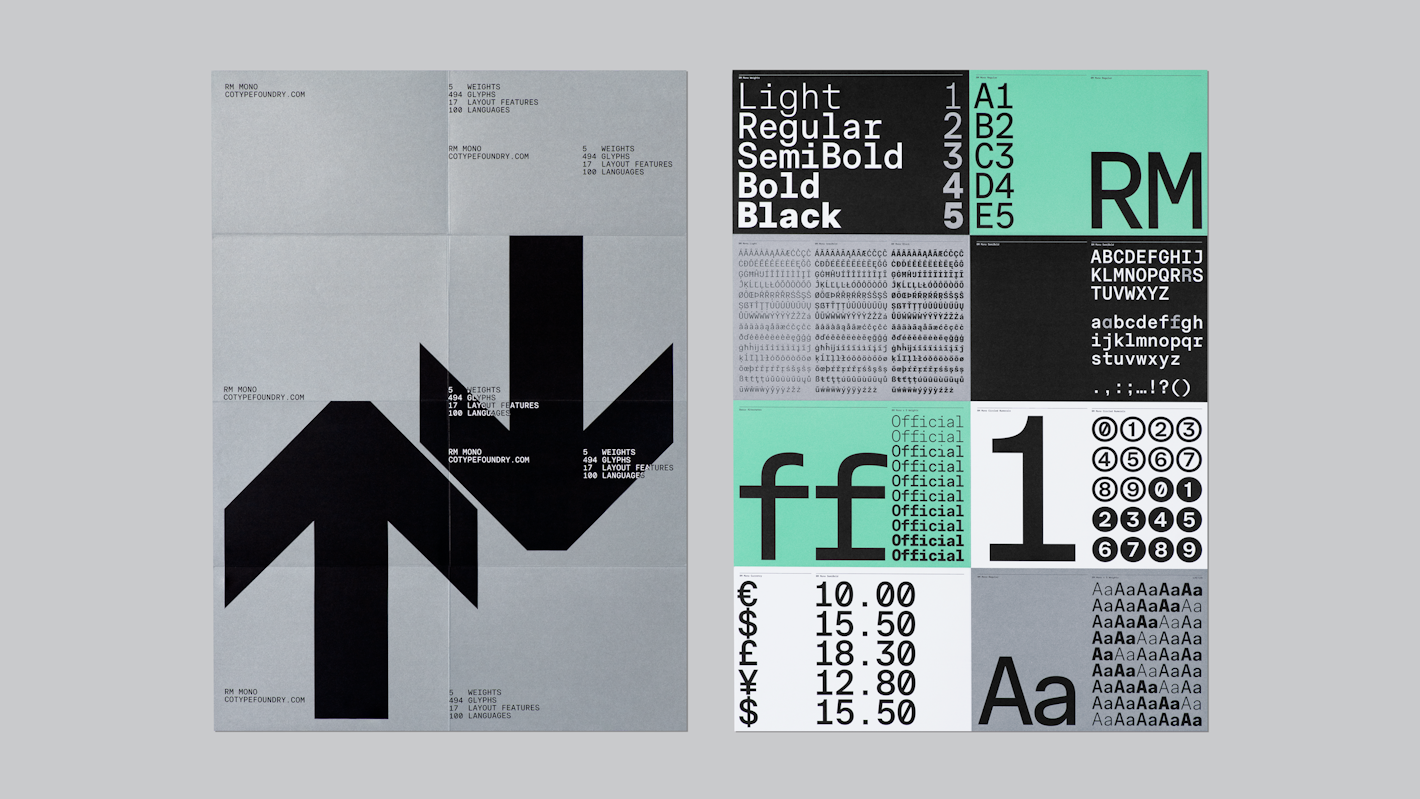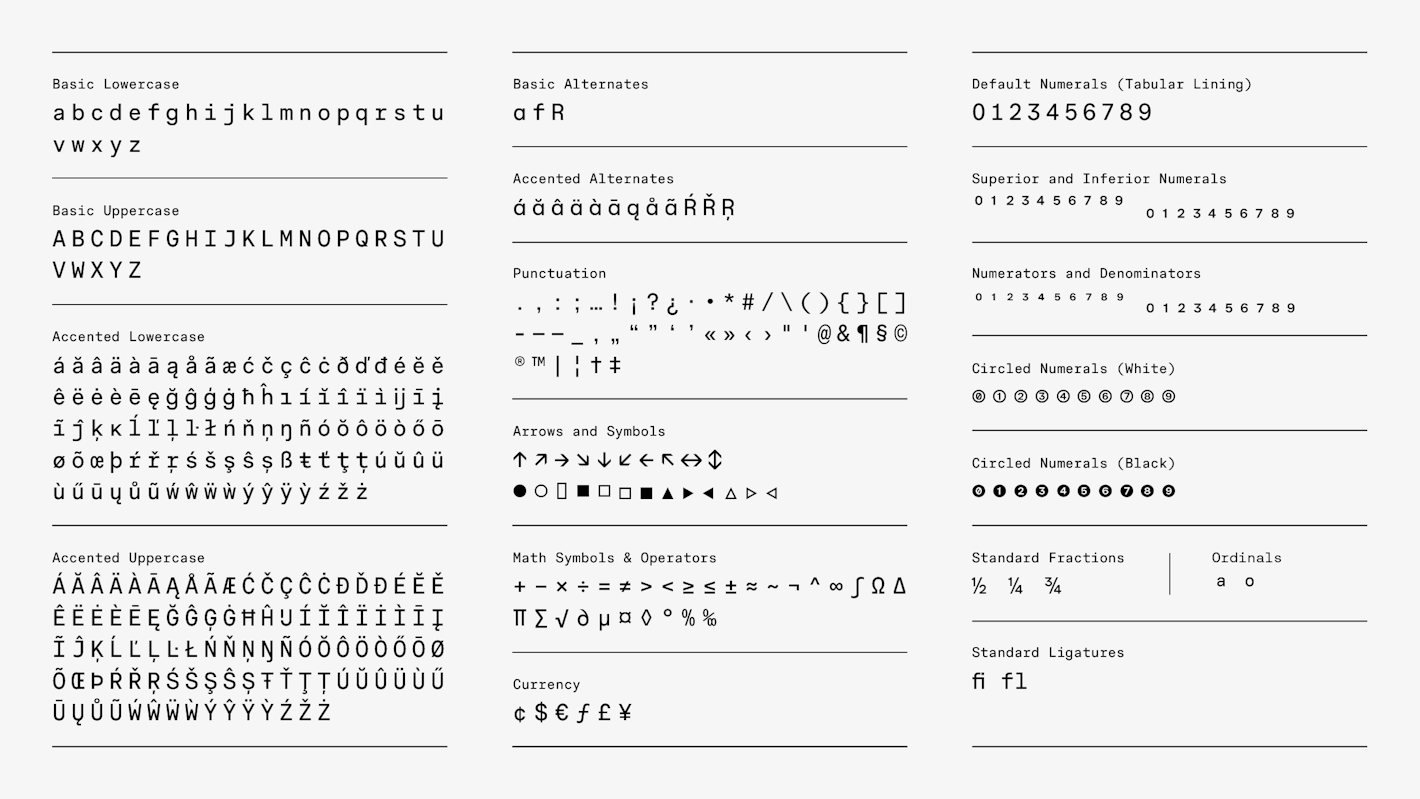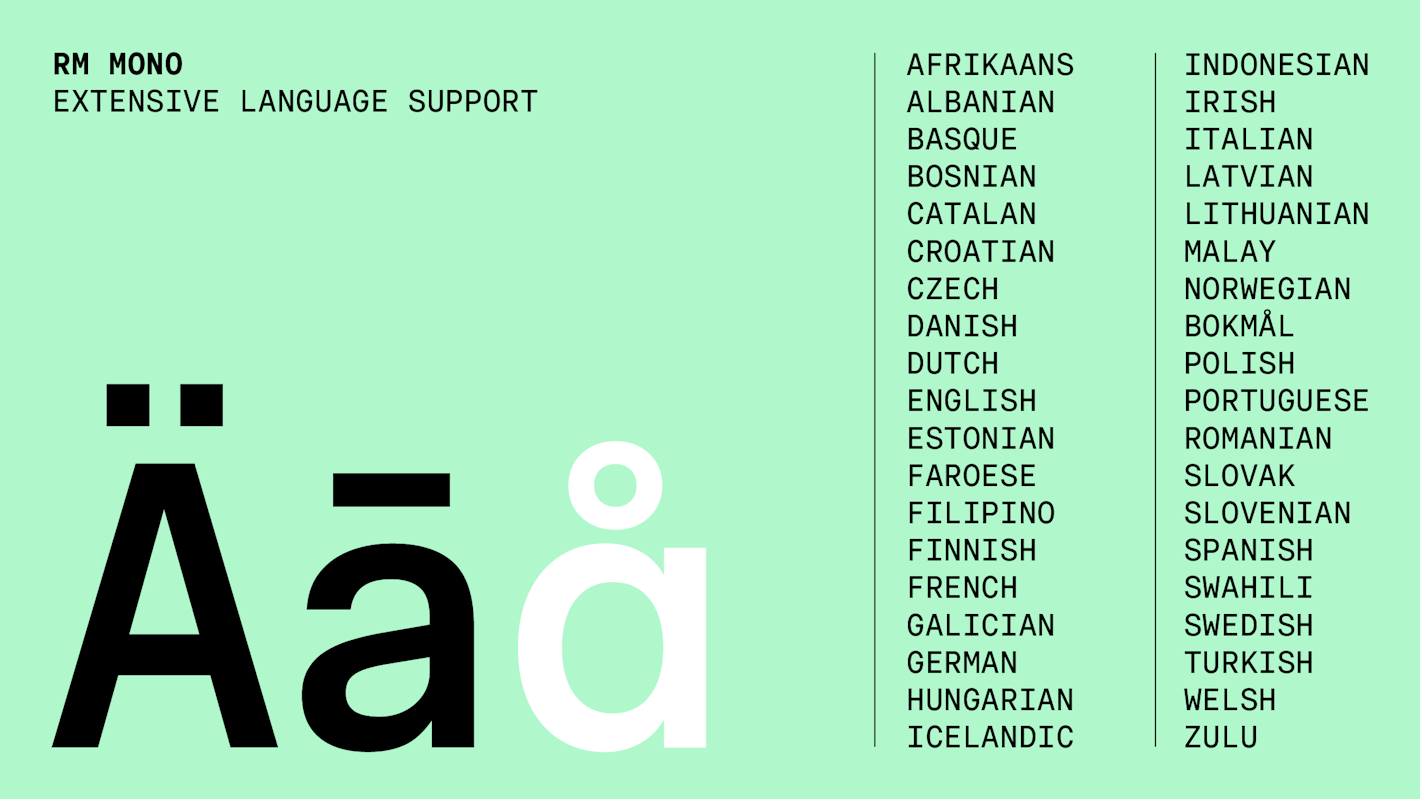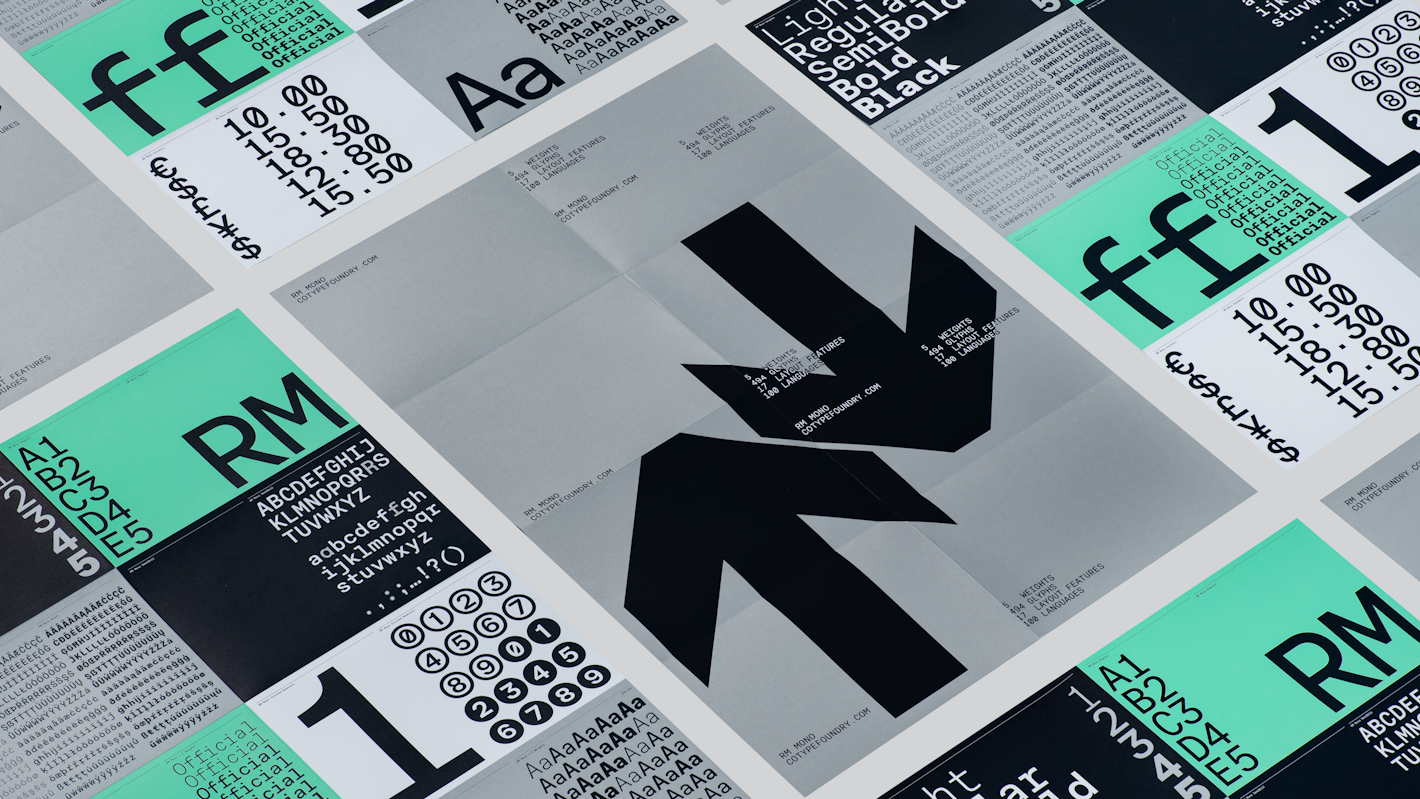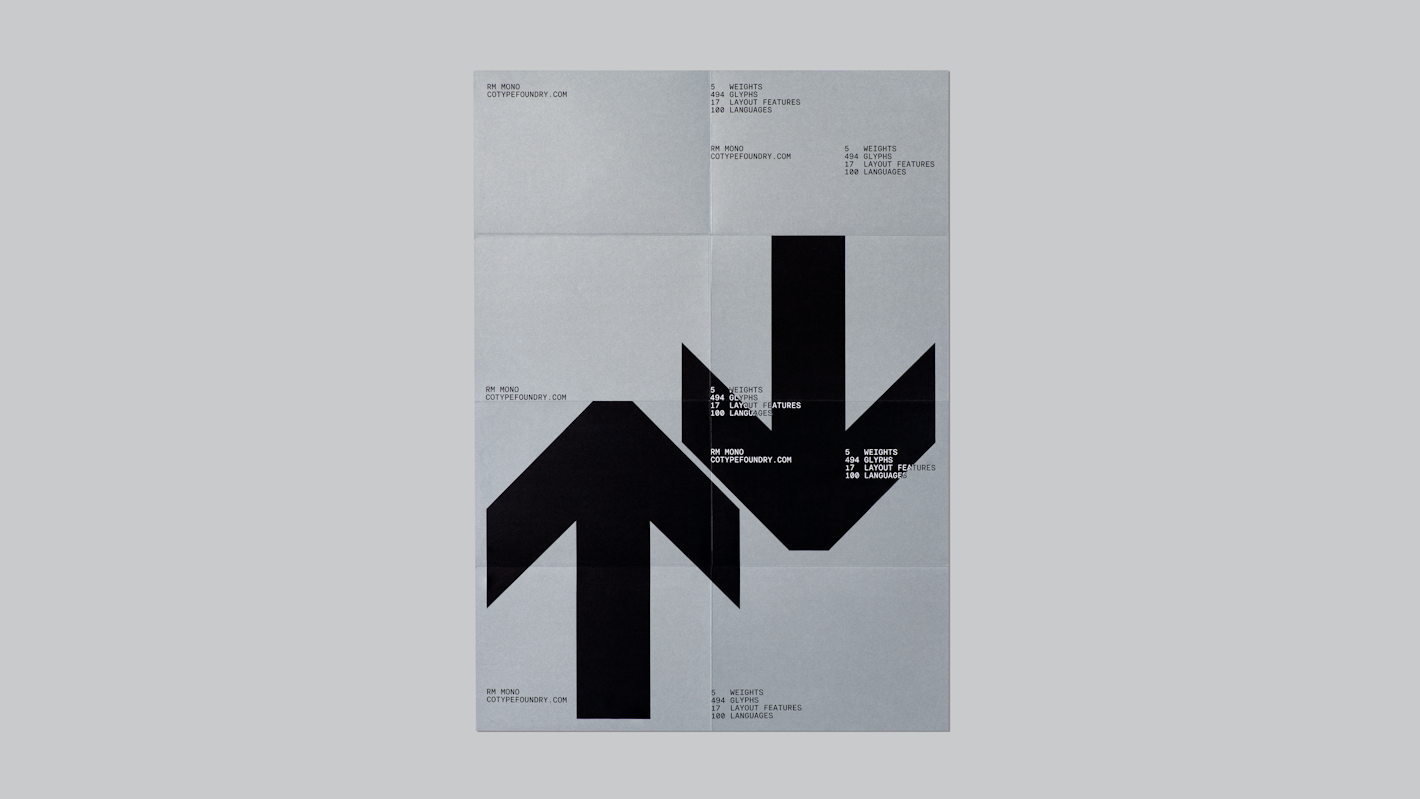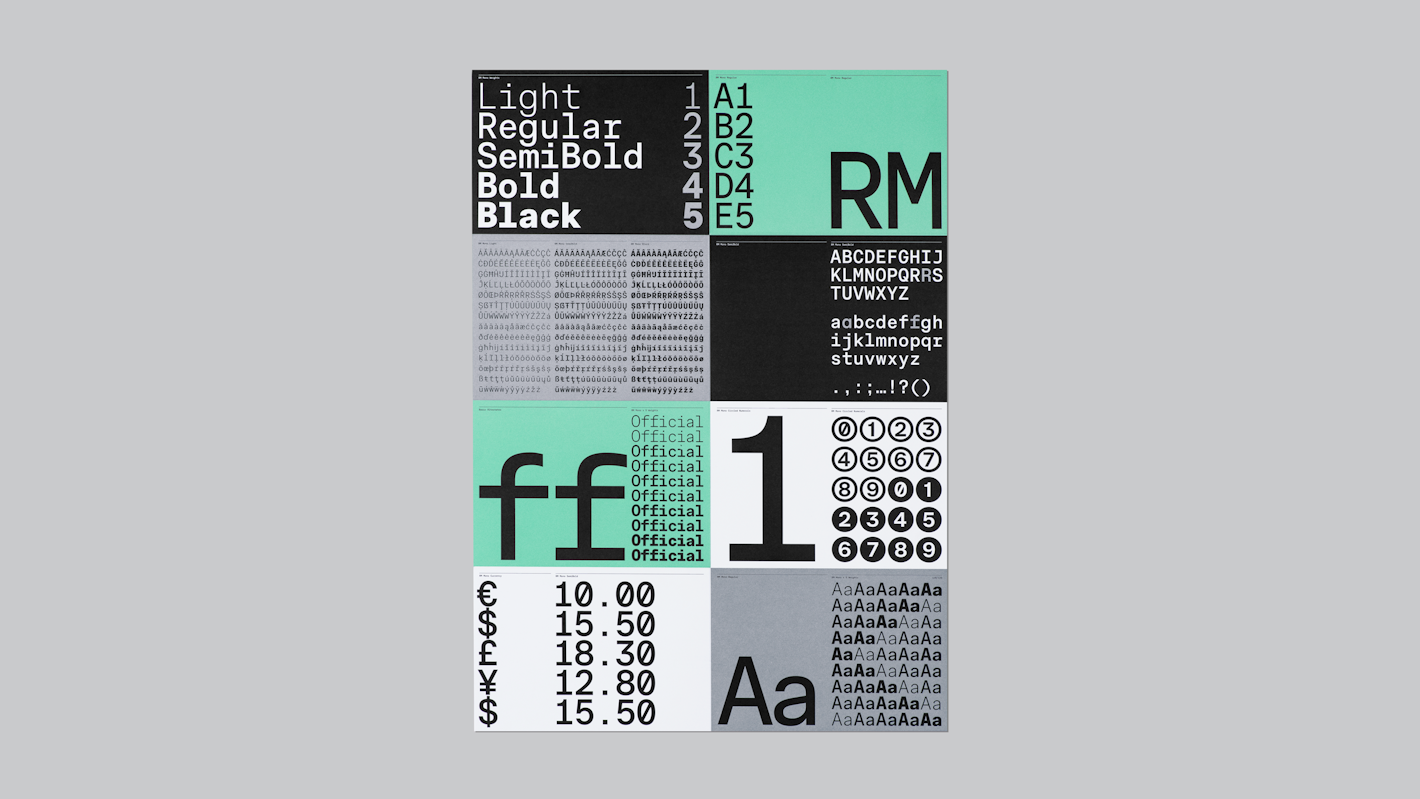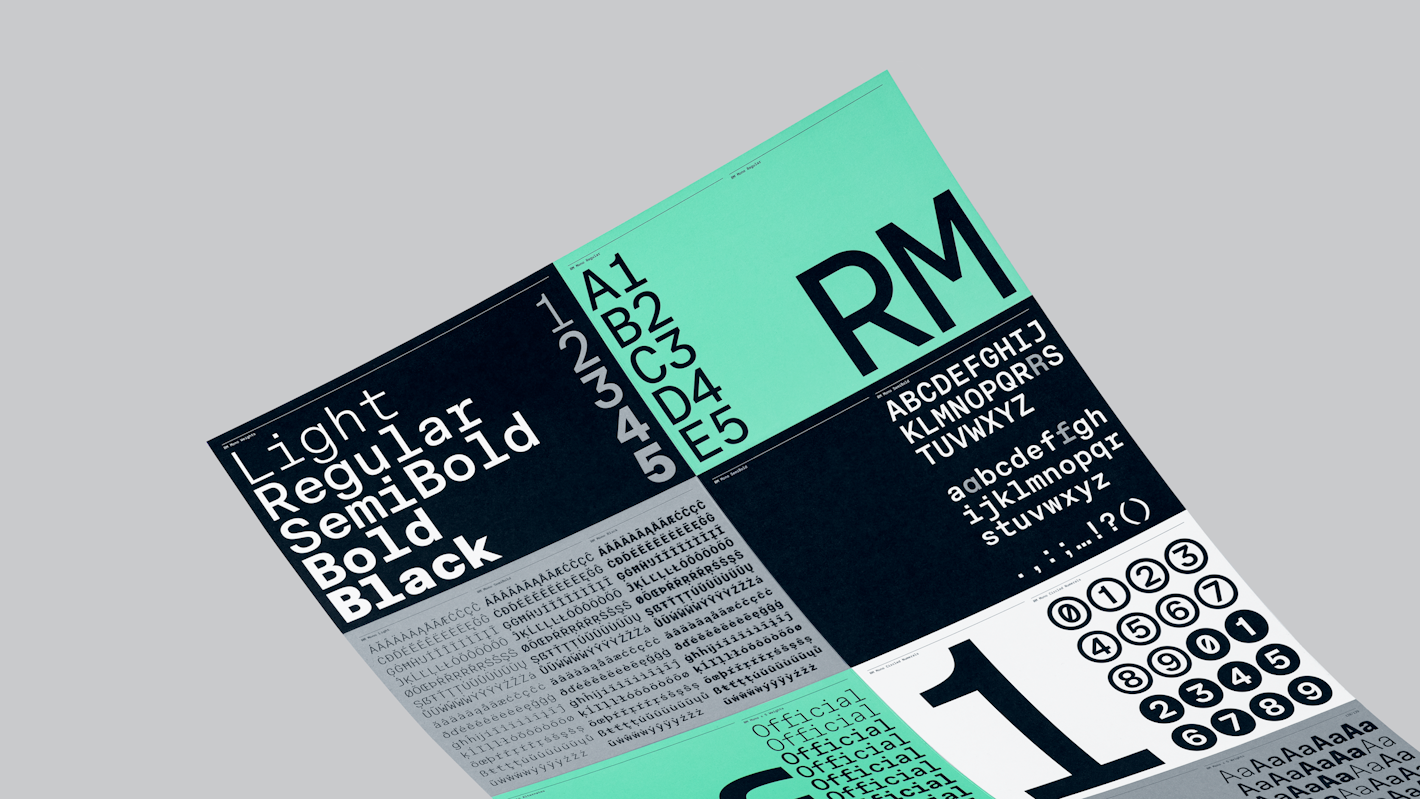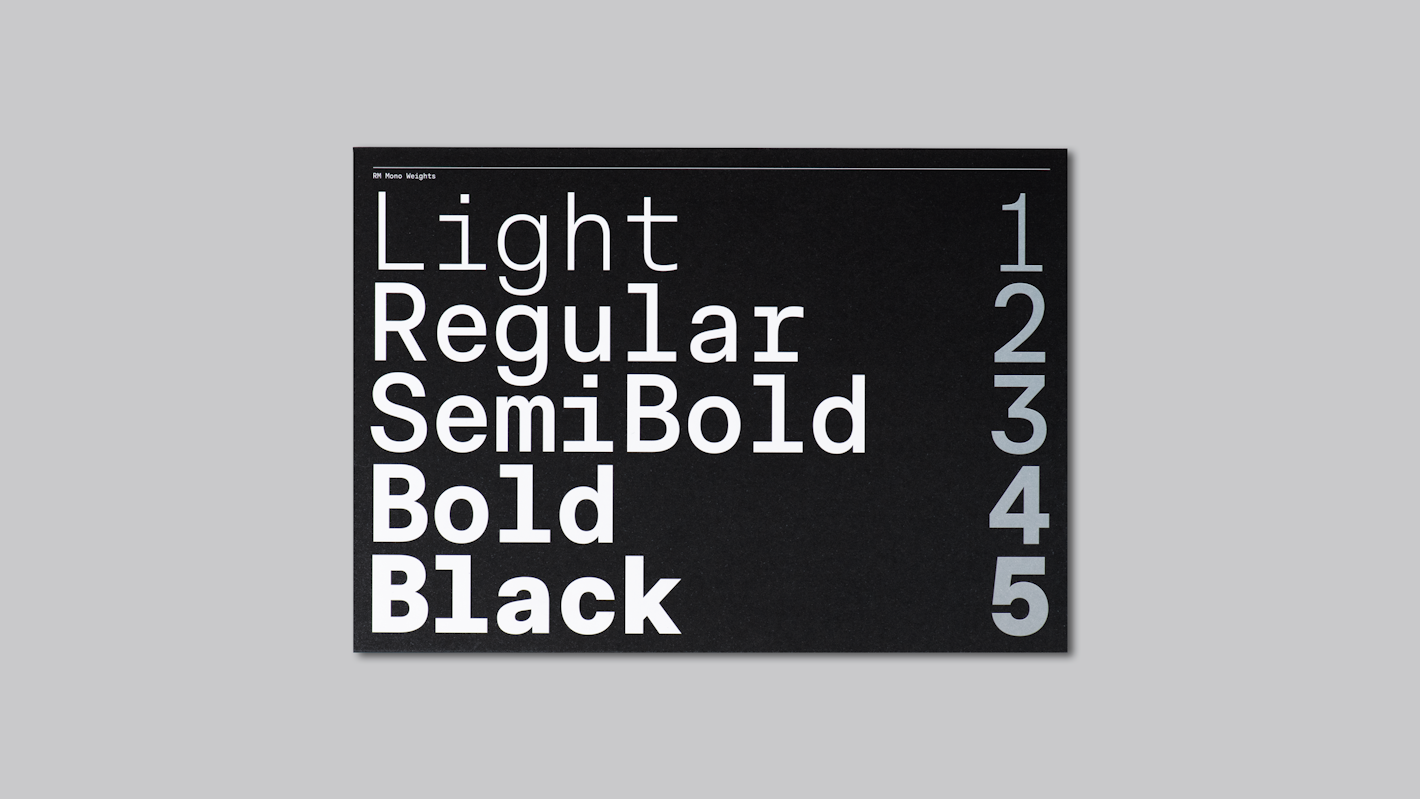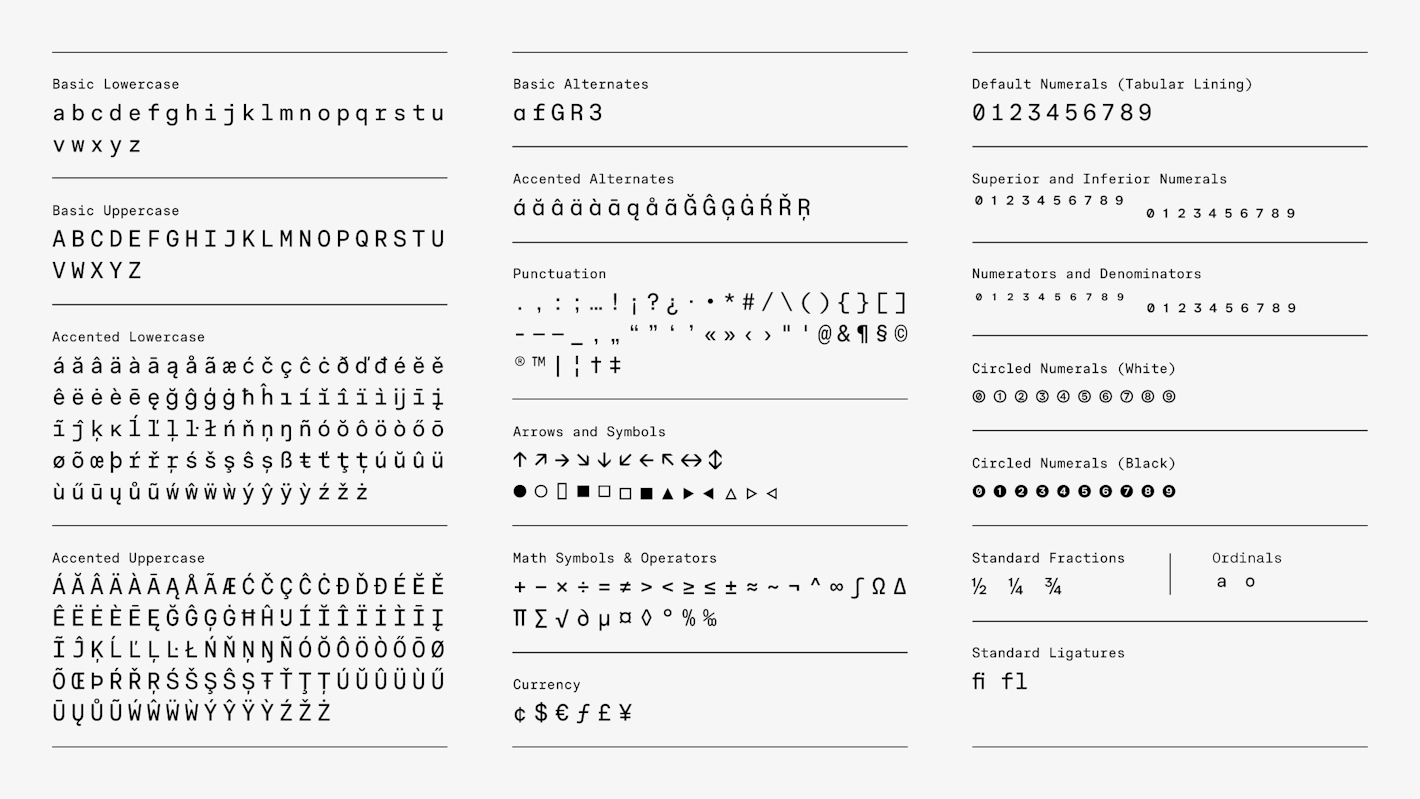
RM Mono is the monospaced counterpart to RM Neue. Each character in RM Mono fits perfectly within a box of the same width (600 units). This monospaced version closely follows the utilitarian roots of RM Neue, offering alternate glyphs such as a single-storey ‘a,’ an ‘f’ with a bottom serif, as well as an alternate ‘R,’ ‘G,’ and ‘3.’ It also includes arrows, fractions, superior and inferior numerals, and multiple geometric symbols. With slightly oversized punctuation and a slightly heavier Regular weight, RM Mono is even suitable for use as a coding font.
RM Mono is available in five weights, from Light to Black, perfectly matching the weights of its sister family, RM Neue. Its language support spans the Latin Extended A character set and allows for typesetting in most European languages written with the Latin script.
Designed with graphic design in mind, RM Mono shines in posters, logos, and booklets. When paired with RM Neue, it creates striking typographic systems that bring cohesion and uniqueness to any project – much like how Aeonik and Aeonik Mono have been used together to craft engaging typographic hierarchies.